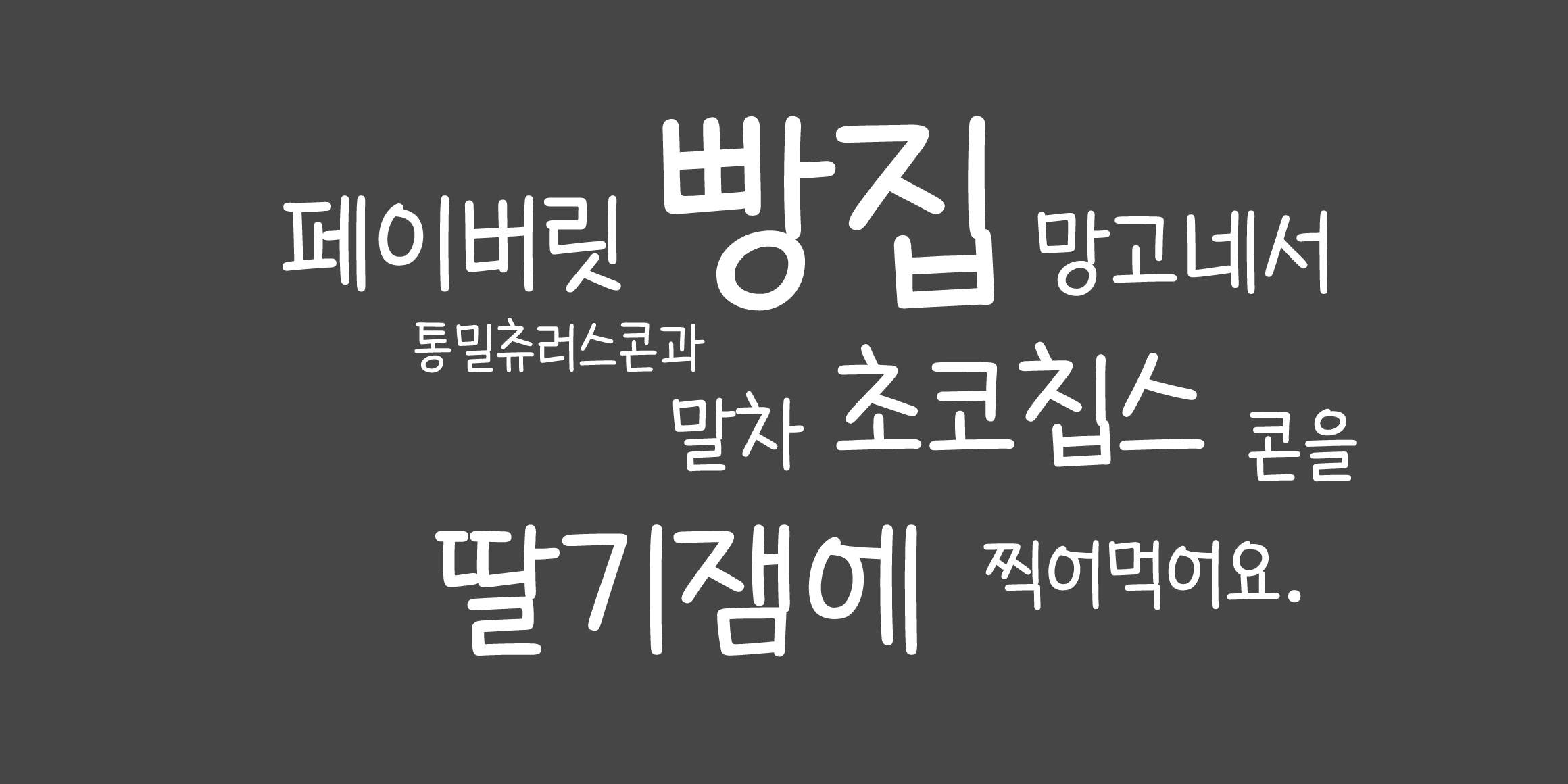
MY HAGO
HAGO is a loopy cursive style that feels like writing quickly with a thin pen. Send a message 'Have a good one = HAGO' to all your friends.
- 2020
- Wang Eunjeong (Tess)